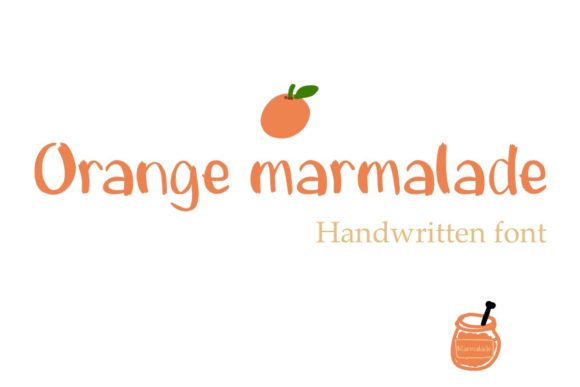
Enter Orange Marmalade, the playful and quirky handwritten font that's ready to bring life and energy to all your digital creations. Created with a touch of whimsy and a dash of elegance, this font captivates with its charming and unique curves. Prepare to be amazed by the personality that it infuses into every letter, word, and design.
Unlock the magic of Orange Marmalade and unleash your creativity! Whether you're crafting stunning logos, designing eye-catching social media posts, creating irresistible website banners, or personalizing digital invitations, this font is your perfect companion. Its versatility knows no bounds, allowing you to explore a world of design possibilities.
Picture this: a digital clock adorned with the charming strokes of Orange Marmalade. Each number dances with a distinctive flair, capturing the essence of time itself. Its playful nature transforms the mundane into the extraordinary, making every second a delightful experience.
Let your imagination soar as you embrace the endless possibilities of Orange Marmalade. Its playful charm will enchant your audience, leaving an unforgettable impression that lingers long after they've encountered your designs. Join the creative revolution and unlock the full potential of your digital creations with this font.